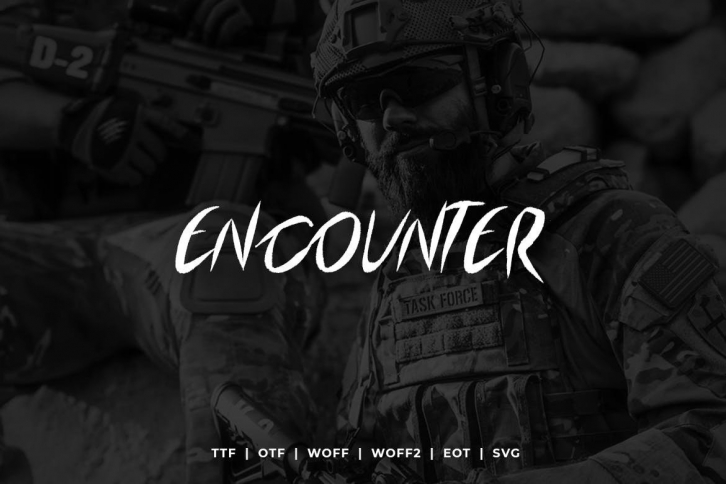
Encounter Typeface
Encounter is a modern Handwritten typeface very much suitable for halloween Themed Posters, Smart headlines, Decorative letters, Notices, Poster Designs, fear & shock Based Banners. Creative & Decorative Typography Web Designs.
Encounter Typeface is perfectly suited for eye-catching fear & shock Based headlines. Its Halloween appearance and mid-weight make it a wonderful candidate for being paired with more decorative, elaborate subheading fonts._